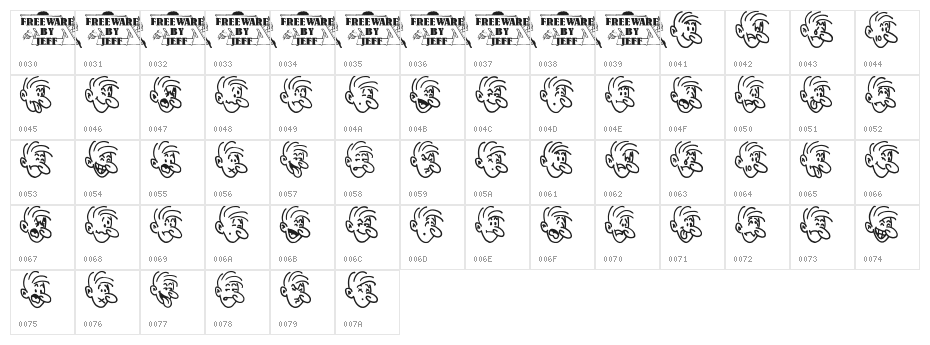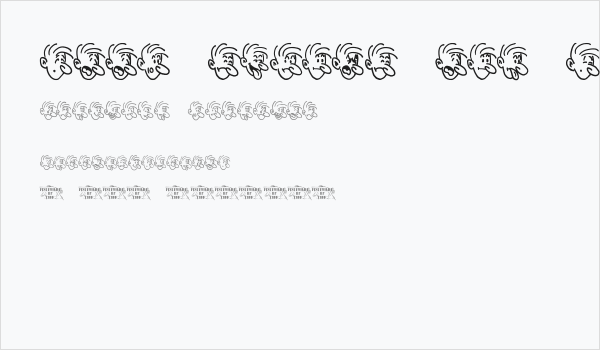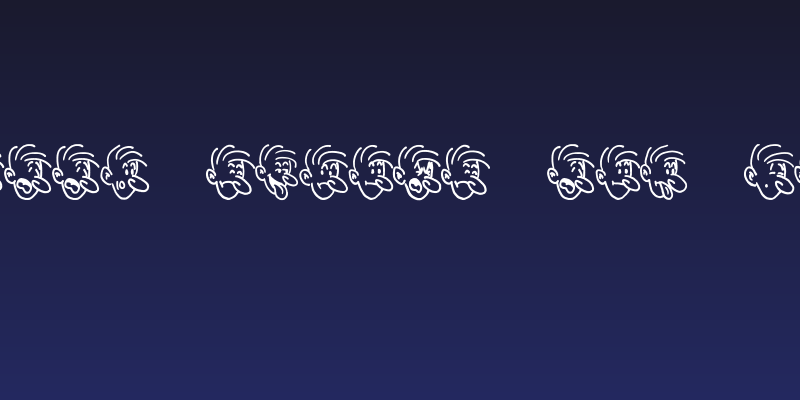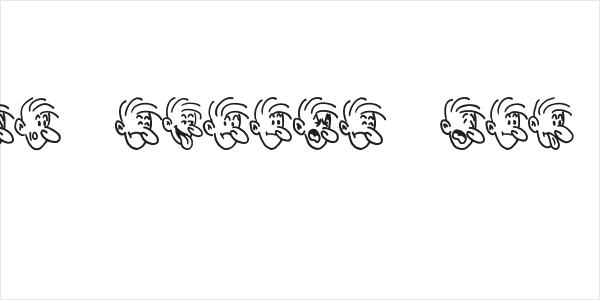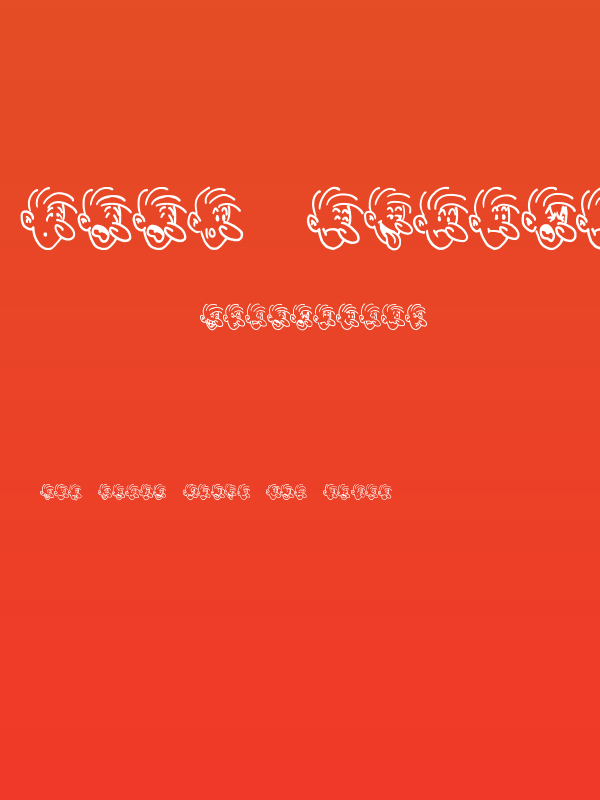
Mood Swings One JL Font
Mood Swings One JL Description
This is not a traditional font but rather a series of cartoonish faces representing various moods. Each character is a unique illustration of a face with different expressions, ranging from happy and surprised to sad and confused. The style is playful and whimsical, with bold lines and exaggerated features that convey emotion effectively. This set is more of a decorative or illustrative element rather than a functional typeface for text.
| Overall Style | Playful and Whimsical |
| Use Case | Illustrations, Comics, Decorative Elements |
| Proposed Projects | Ideal for comic strips, children's books, or any project requiring expressive, illustrative elements. |